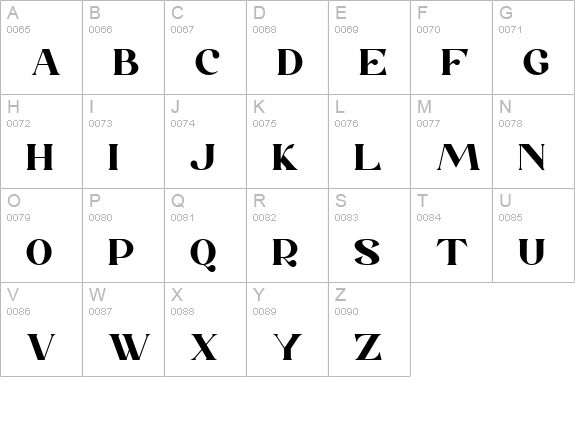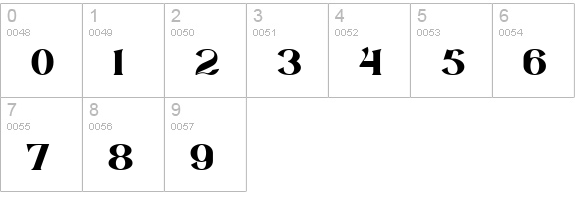
Argithea Font Details
Argithea is a demo font in the General > Serif category, designed by pentagonistudio. It has been downloaded 123 times and is available for Windows, Mac and Linux.
Introducing Argithea font - a stunning display typeface that exudes elegance and sophistication. With its intricate details and graceful curves, Argithea is perfect for adding a touch of luxury to your design projects. Whether you're working on branding, packaging, invitations, or any other creative endeavor, this font is sure to make a bold statement.